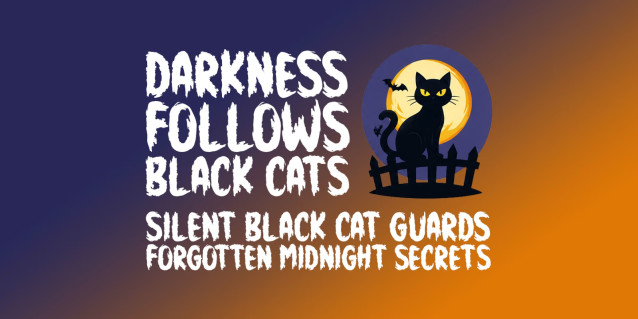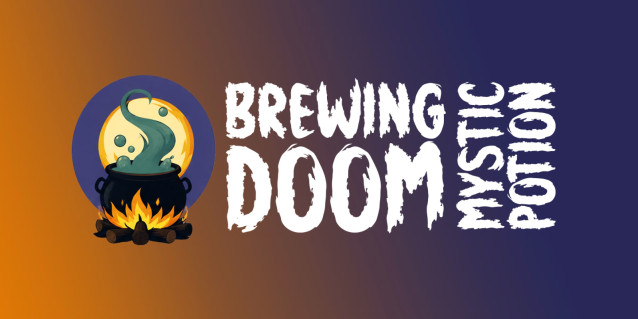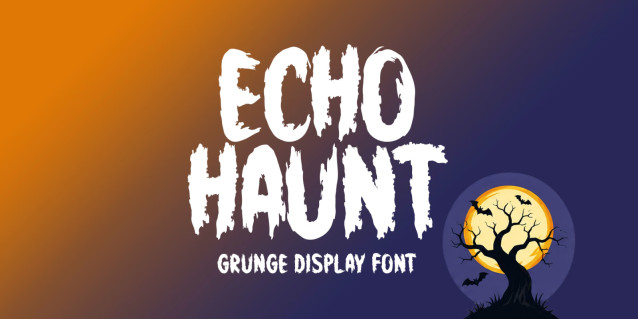
Echo Haunt Font
Echo Haunt is a bold, grungy Halloween display font crafted to bring eerie energy and spooky character to your designs. Its rough edges and distressed style create a haunting atmosphere, making it perfect for horror posters, party invitations, branding, apparel, packaging, social media graphics, and seasonal crafts that demand a dark, unforgettable impression.